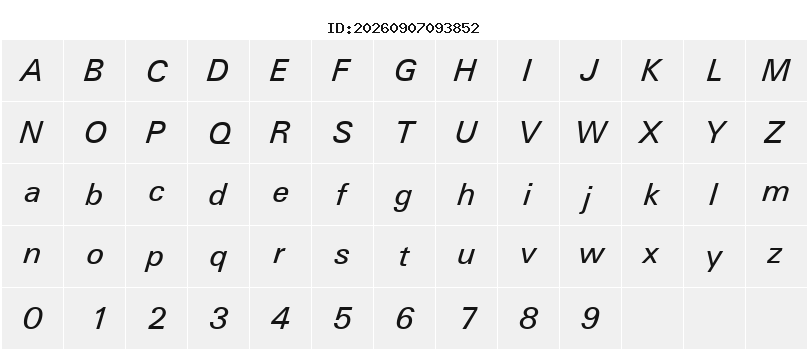
Univers CE Preview
• Font Name: Univers CE
• Font Style: Italique
• Font ID: Univers Italic
• Full Font Name: Univers Italique
• Version: Version 1.02a
• PostScript Name: Univers-Italic
• Character Count: 282
About Univers CE.ttf
Univers CE.ttf is a modern, elegant sans-serif font designed for ultimate readability and visual harmony. Perfect for branding, headlines, web design, and print materials.